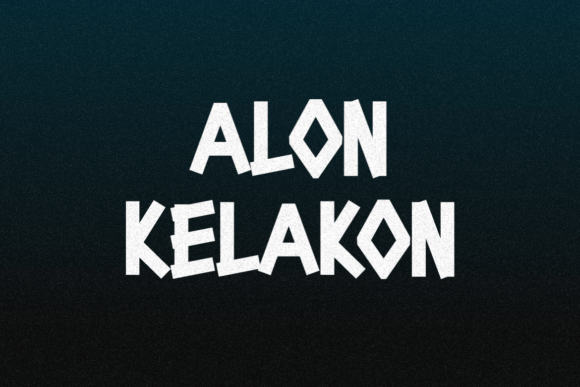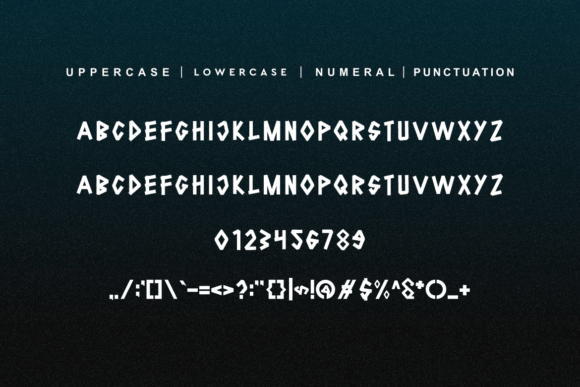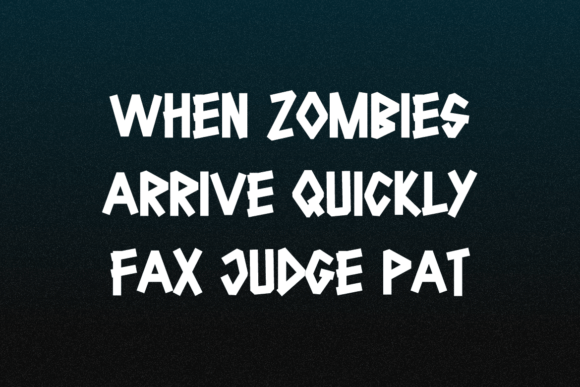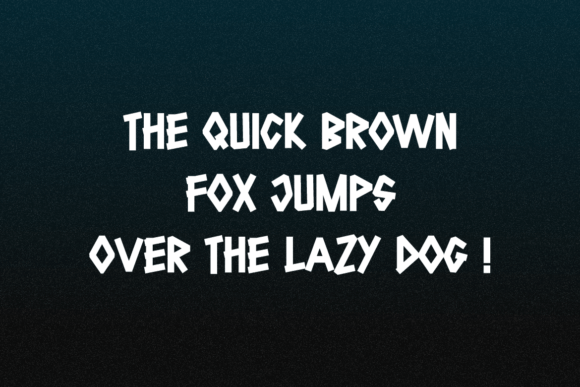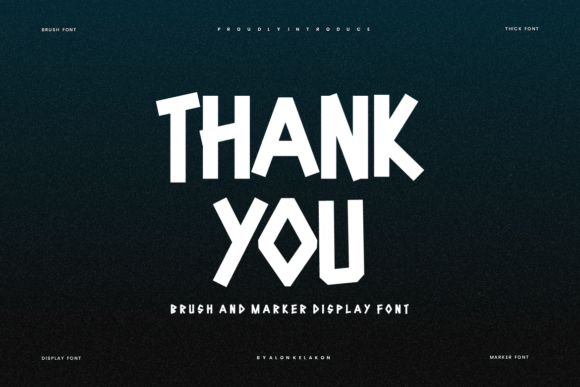
Introduction to Oxgeren Font
Have you ever found yourself stuck in a creative rut, staring blankly at a blank canvas, waiting for inspiration to strike? For designers, this feeling is all too familiar. But what if you had the perfect tool to spark that creative fire? Enter the Oxgeren Font, a unique and quirky design resource that’s about to revolutionize your creative project.
| 👤 Author | alonkelakon |
With its free download and transparent background, the Oxgeren Font is the perfect addition to any design portfolio. Whether you’re working on a high-quality logo, flyer, or website, this font’s versatility and style will elevate your design to the next level. And the best part? It’s incredibly easy to use, making it a valuable asset for designers of all levels.
In this article, we’ll delve into the world of the Oxgeren Font and explore its many benefits. From its unique aesthetic to its practical applications, we’ll show you why this font is a must-have for any designer looking to take their creative project to new heights.
Key Features of Oxgeren Font
- High-quality design resource with a unique, modern aesthetic, ideal for creative projects.
- Features a transparent background, allowing for easy customization and integration with various design elements.
- Designed with a focus on legibility and readability, making it suitable for a wide range of applications, from print to digital media.
- Includes a comprehensive character set, covering multiple languages and ensuring versatility in various creative projects.
- Perfect for designers, artists, and creatives looking for a unique and versatile font to elevate their designs and projects.
Honest Review: Oxgeren Font
I recently stumbled upon the Oxgeren Font, and I must say it’s been a game-changer for my design projects. As a designer, I’m always on the lookout for high-quality fonts that can elevate my creative work. The Oxgeren Font definitely delivers.
One of the things that stood out to me was the font’s versatility. It’s perfect for both digital and print projects, and the transparent background makes it super easy to work with. I also appreciate that it’s available for free download, making it an excellent addition to any design resource collection.
Here are some of the things that work well with the Oxgeren Font:
- ✨ High-quality design: The font looks and feels professional, making it perfect for client work or personal projects.
- ✨ Versatility: It’s suitable for a wide range of design projects, from logos to infographics.
- ✨ Easy to use: The transparent background and clear typography make it a breeze to work with.
That being said, there are a few limitations to consider:
- ⚠️ Limited font styles: While the Oxgeren Font is available in several weights, it’s not as extensive as some other font collections.
- ⚠️ Not suitable for complex text: Due to its clean design, it may not be the best choice for projects with intricate or multi-line text.
Overall, I’m really impressed with the Oxgeren Font. It’s a fantastic addition to any design resource collection, and I’m excited to see how it can help elevate my creative projects.
Oxgeren Font is commonly used in a variety of creative projects, including:
- Branding and marketing materials.
- Graphic designs for social media and websites.
- Presentations and documents.